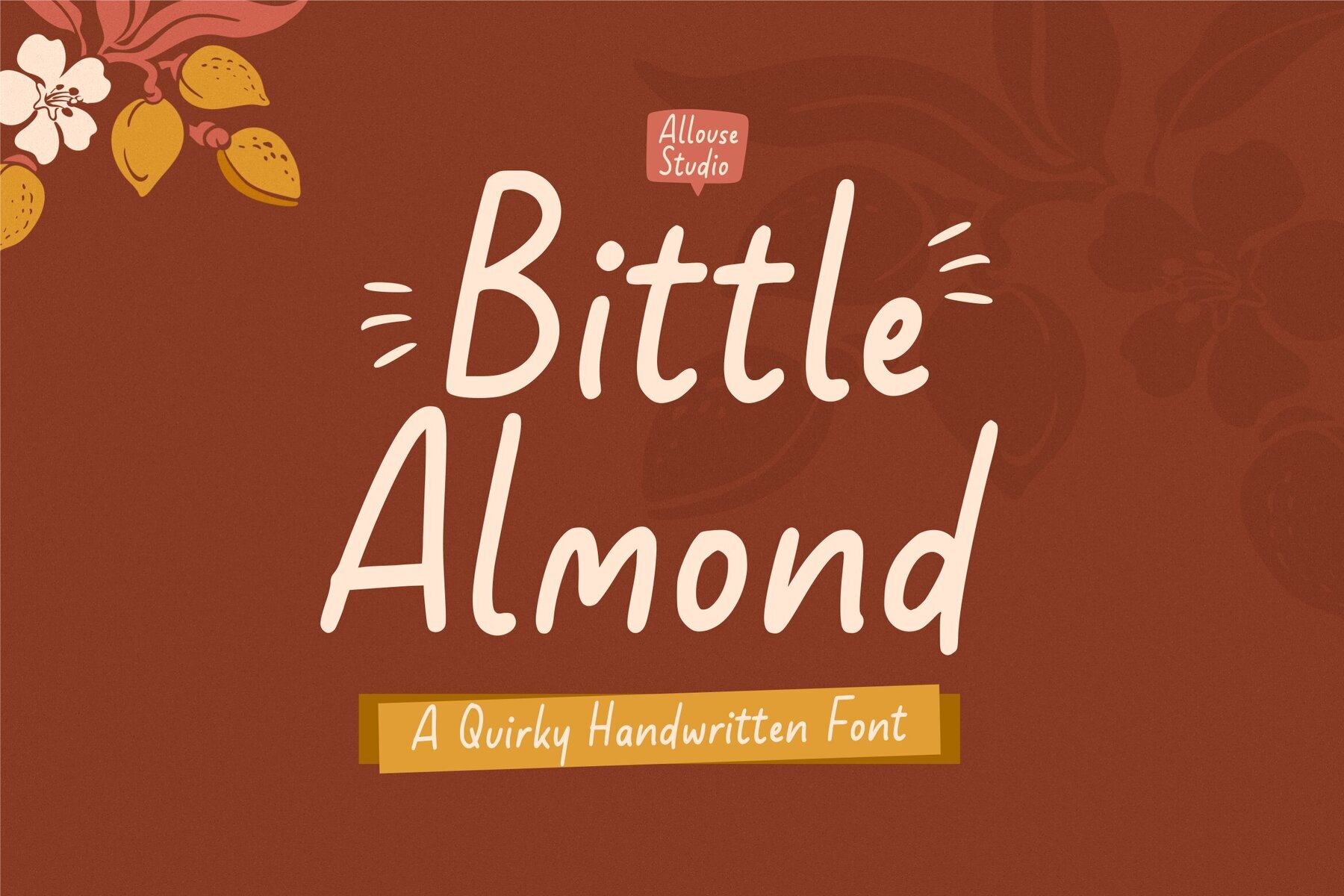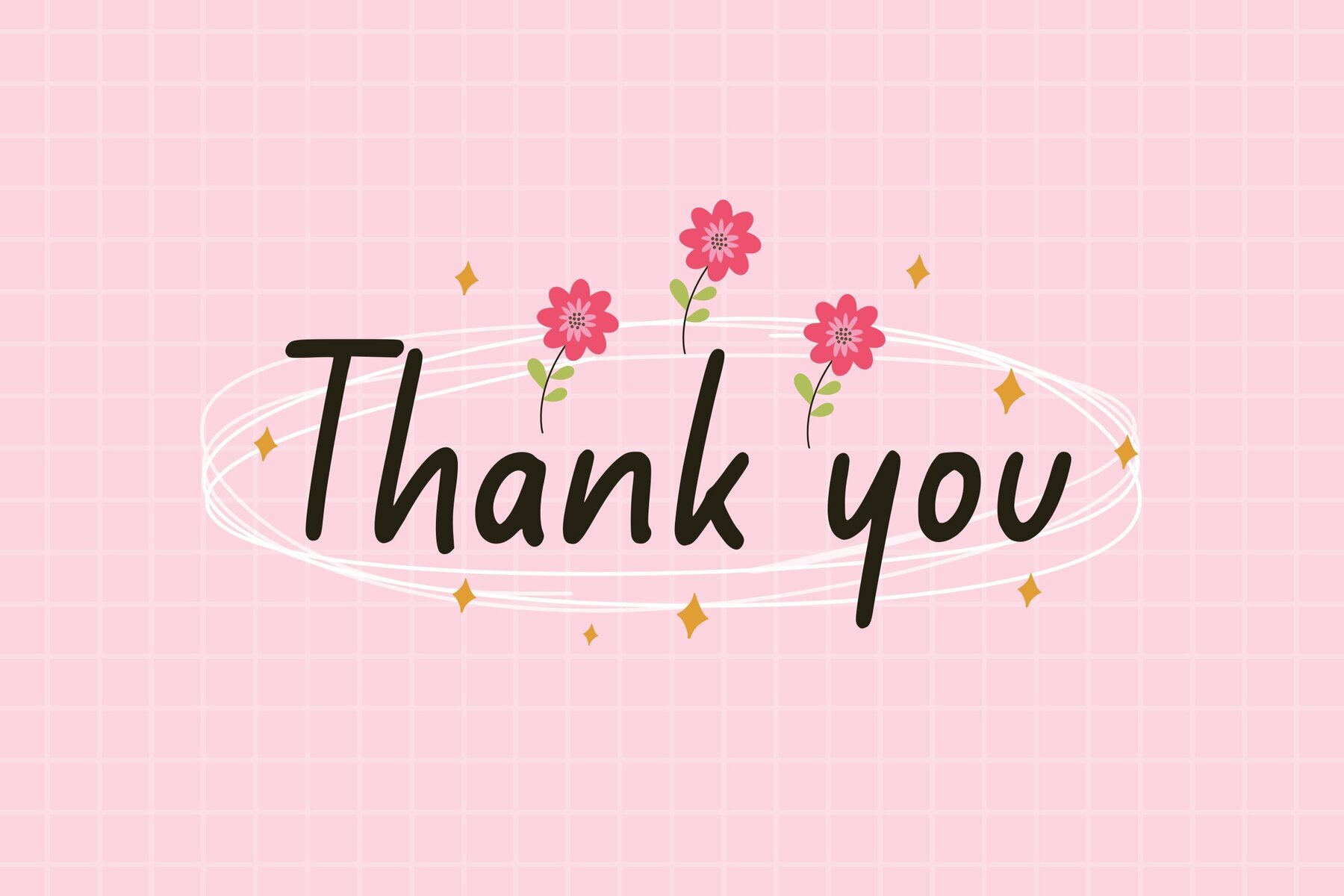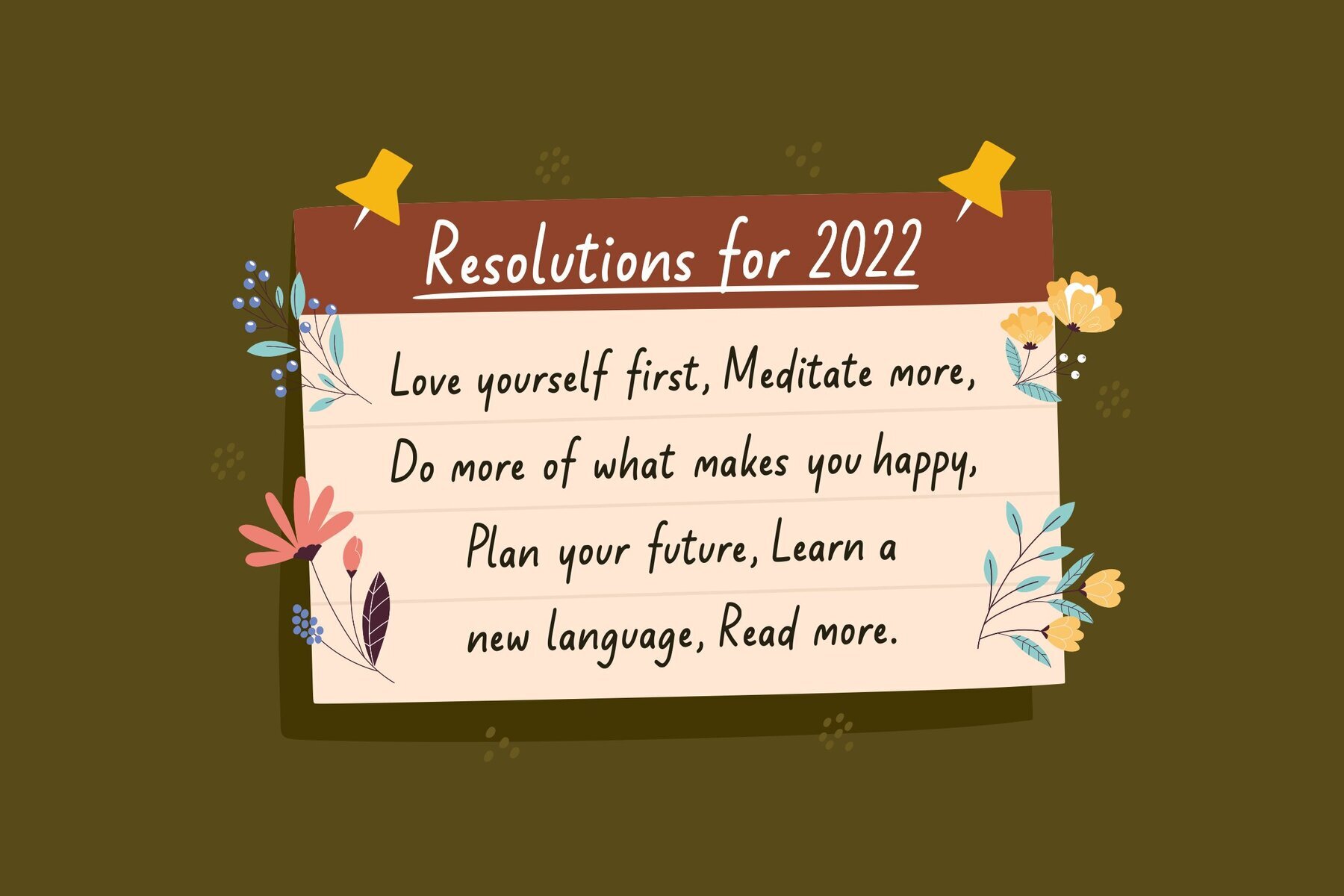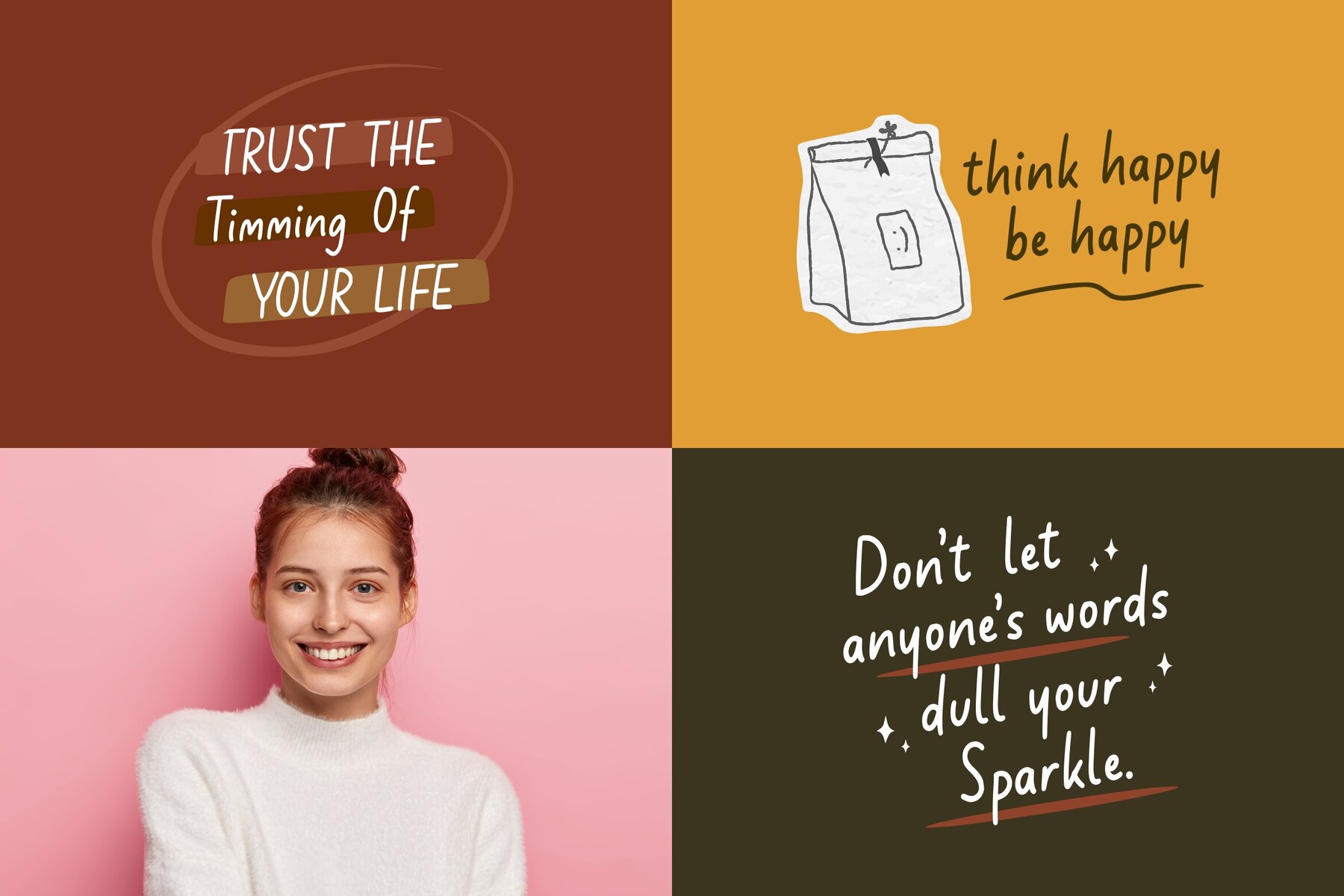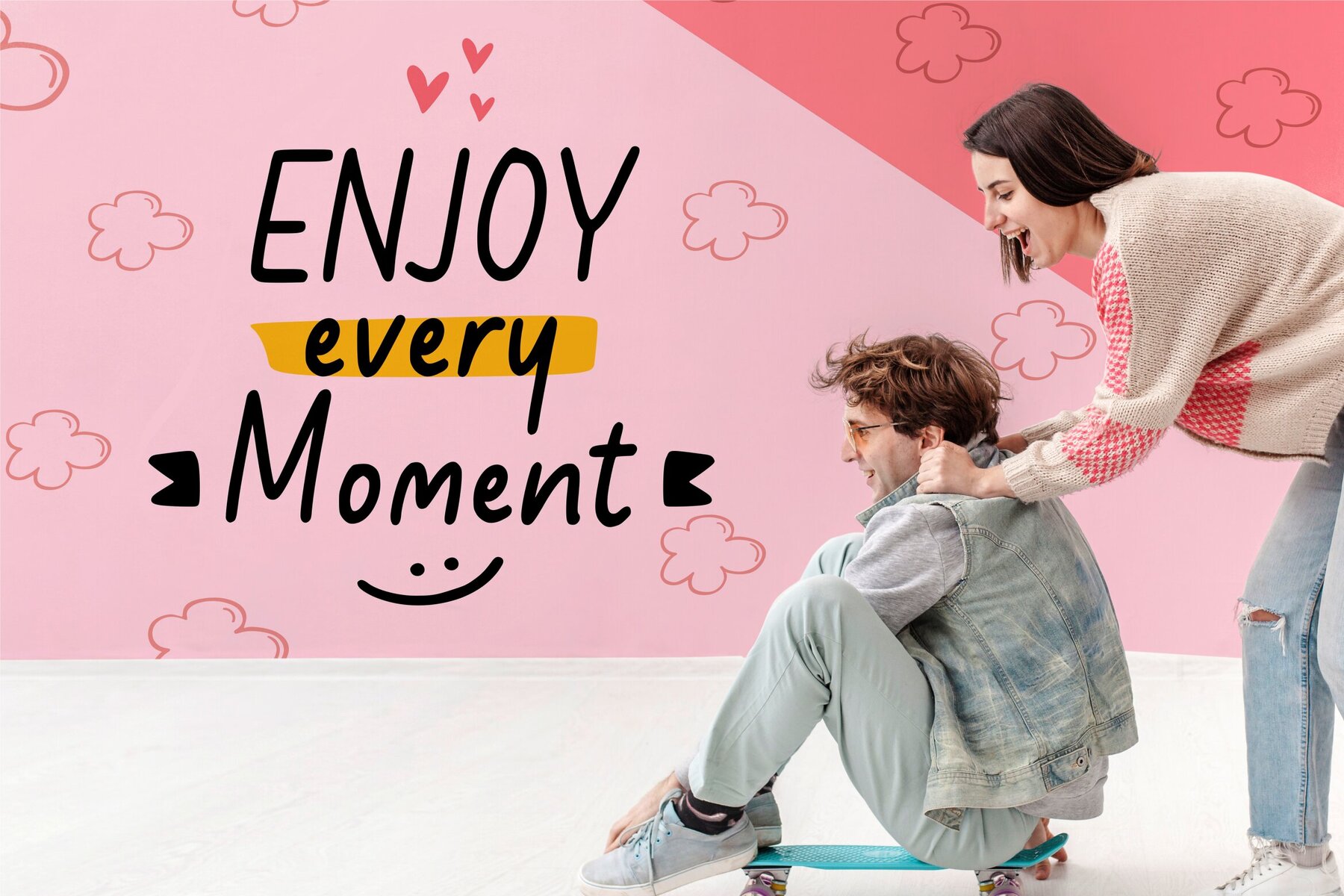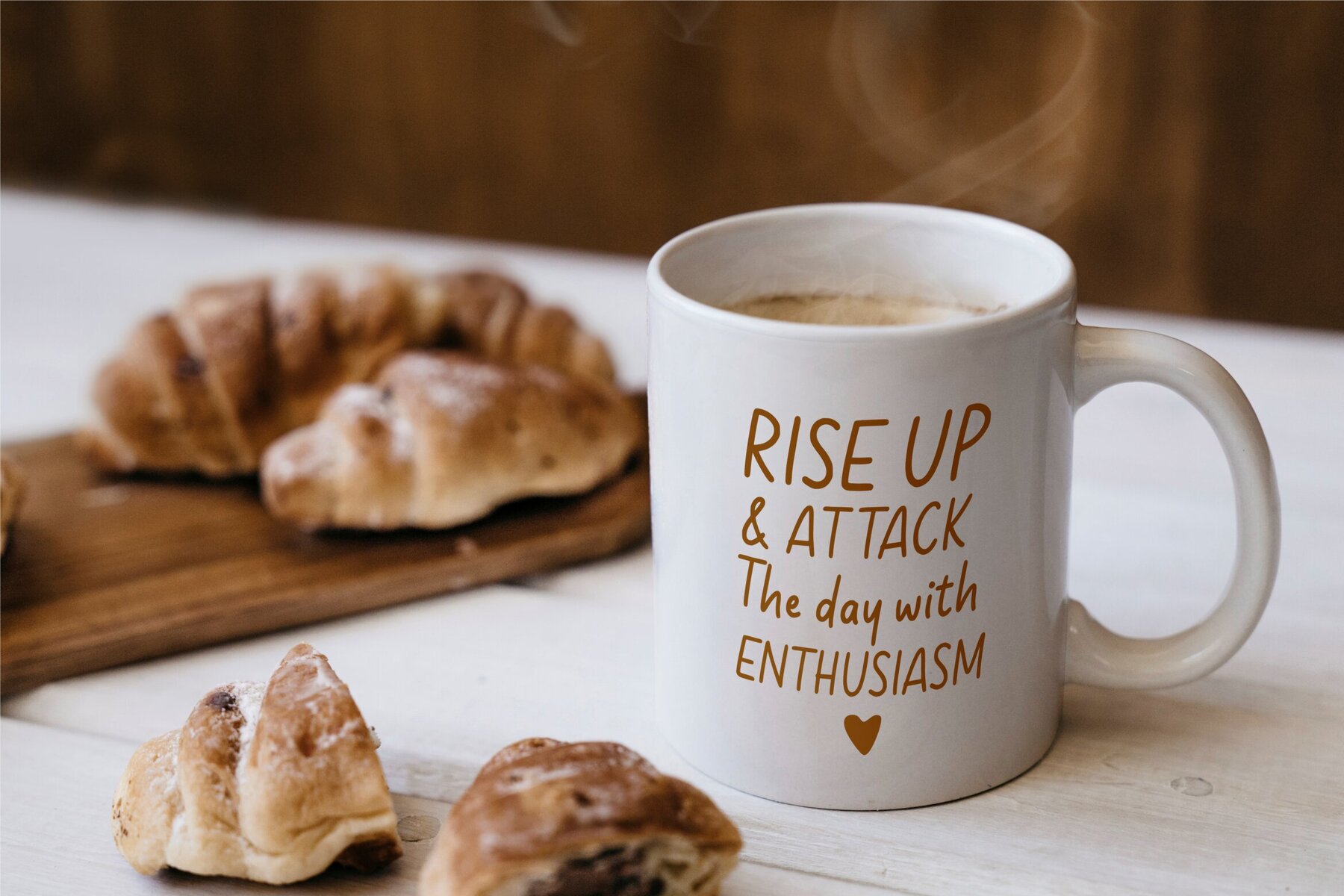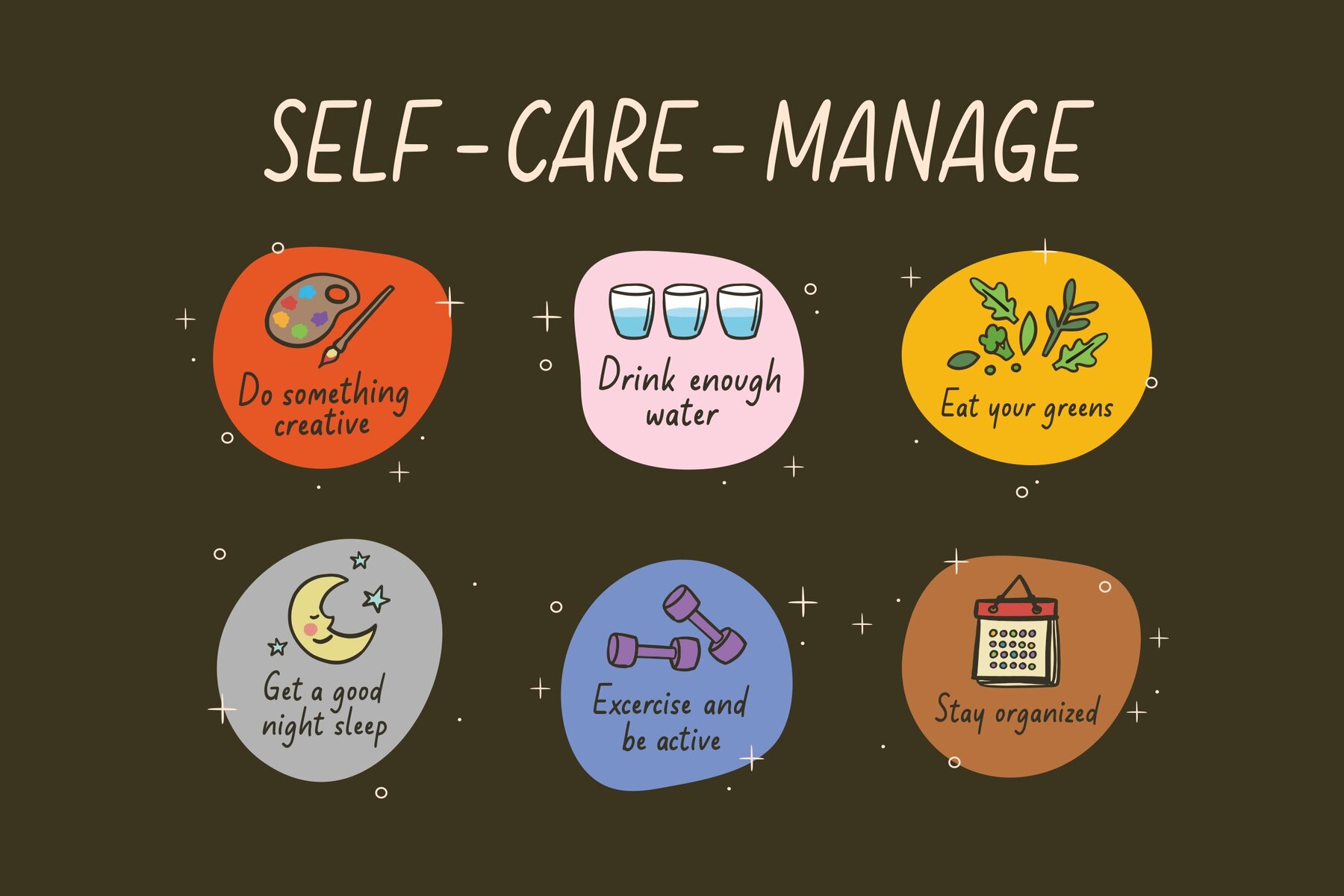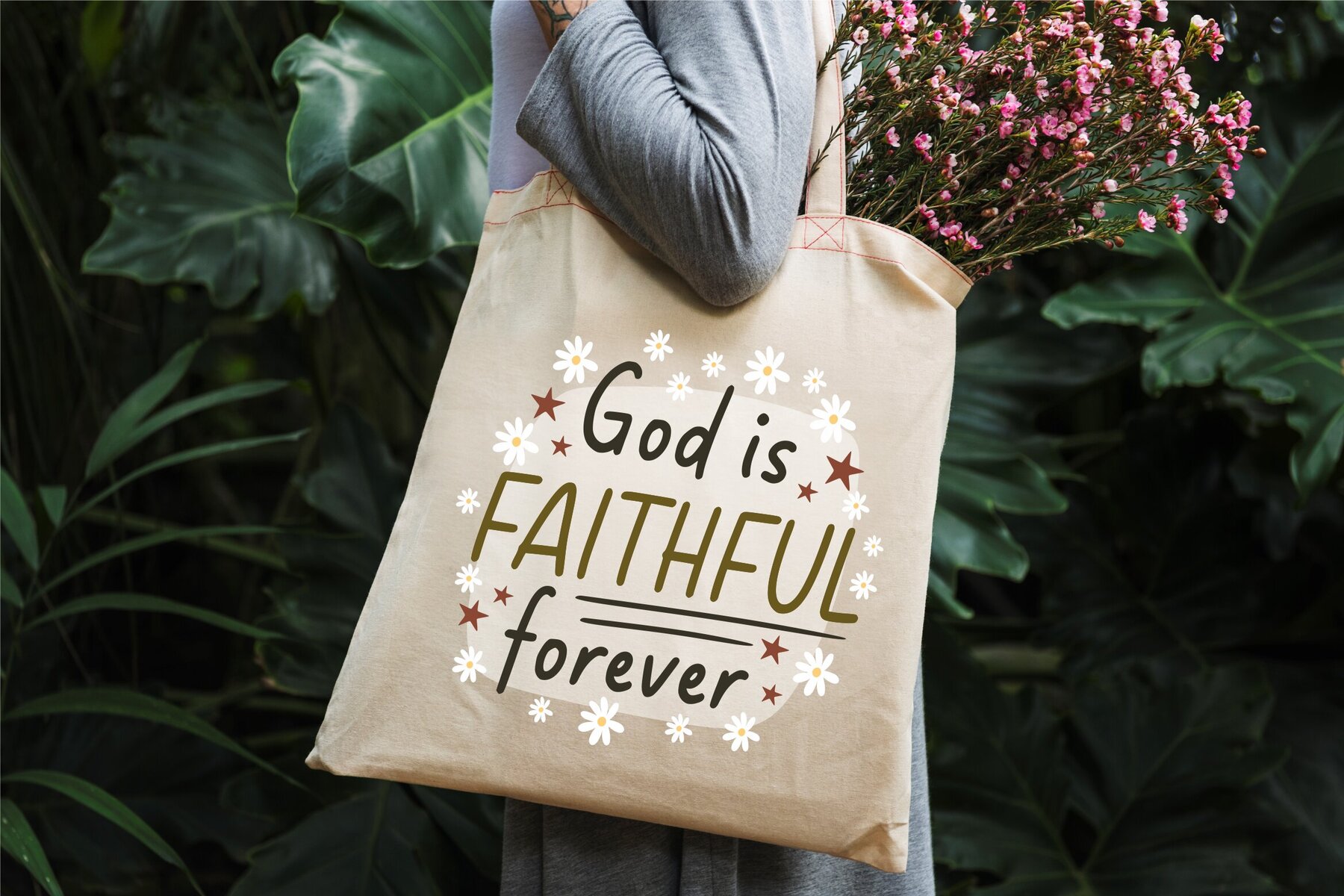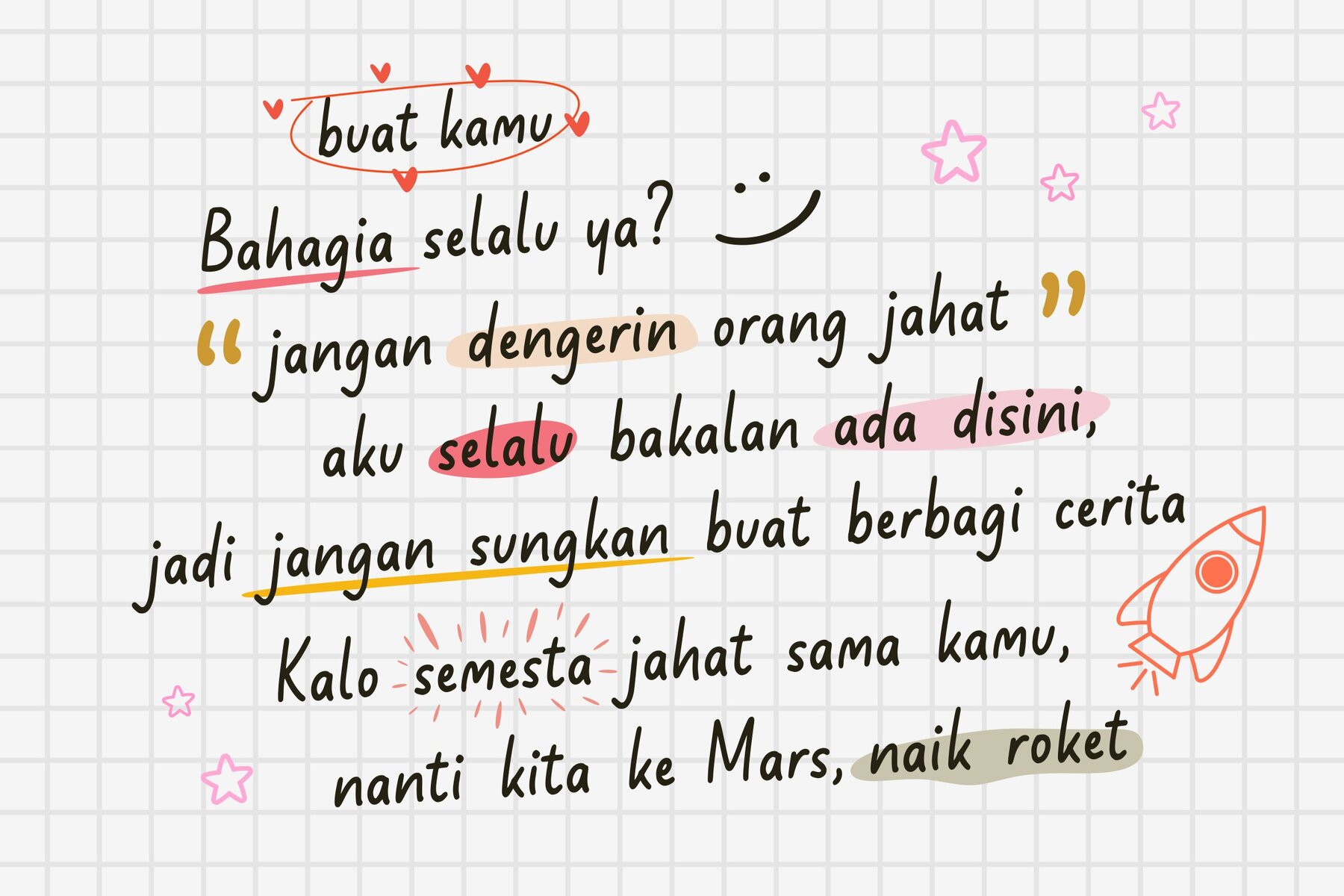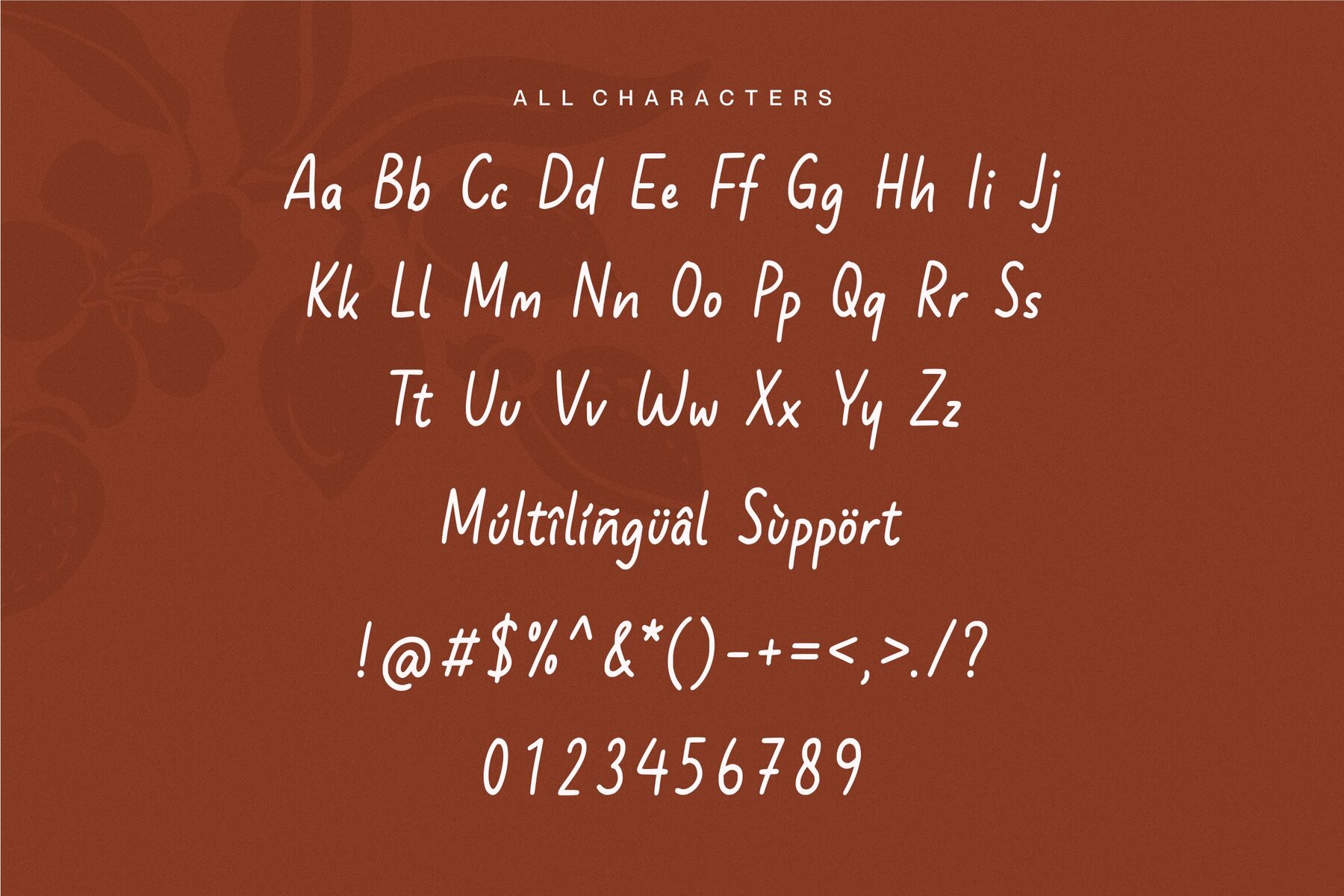
Bittle Almond Font
Bittle Almond
Bittle Almond stands as a sophisticated choice for designers seeking a typeface that seamlessly adapts to various design contexts. Whether you're undertaking product packaging, branding endeavors, or crafting magazine layouts, this font offers the ideal balance of elegance and utility. Additionally, its refined characteristics make it a compelling option for wedding invitations and enhancing social media presence with a touch of class.Bittle Almond: A Refined Typeface for Versatile Applications